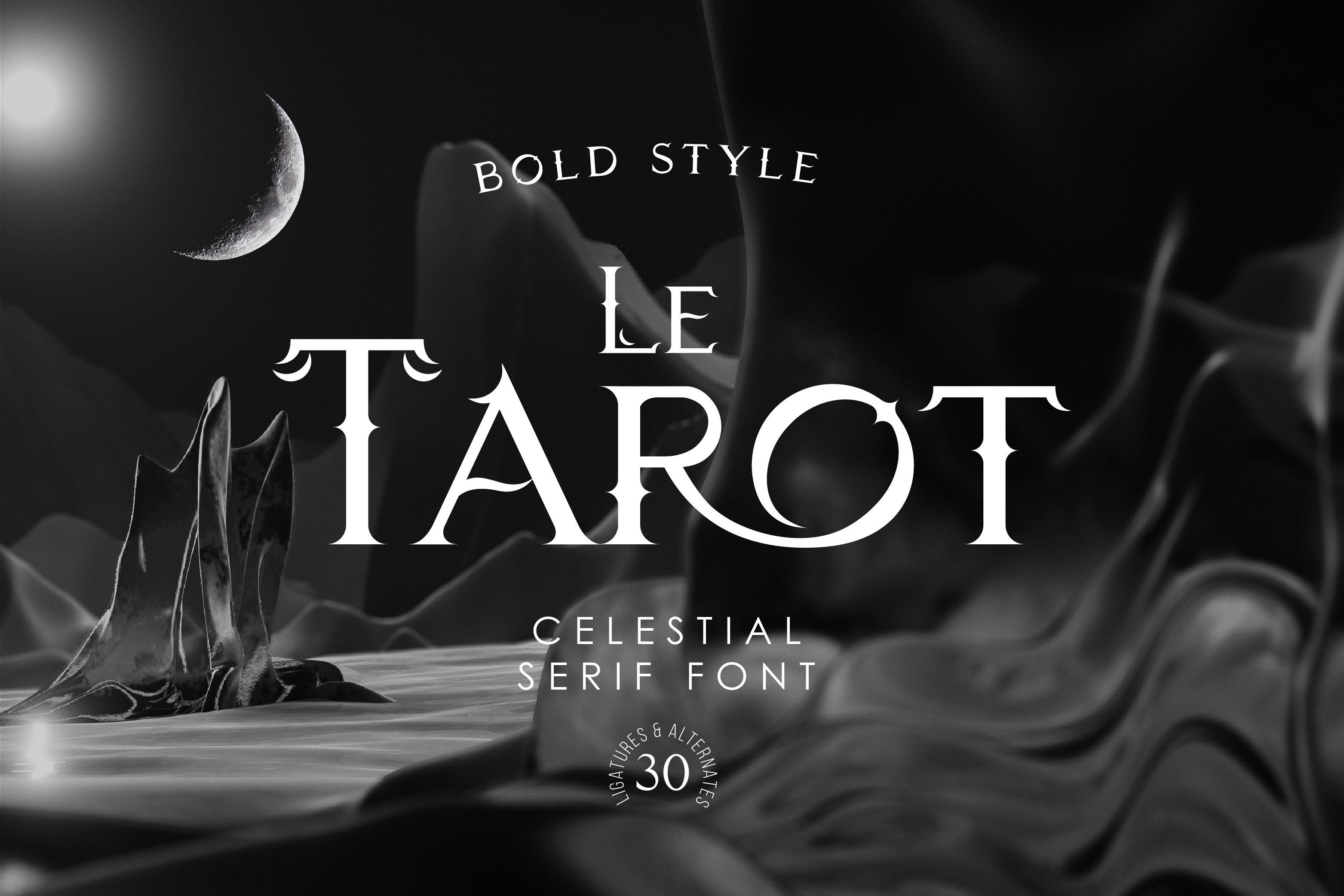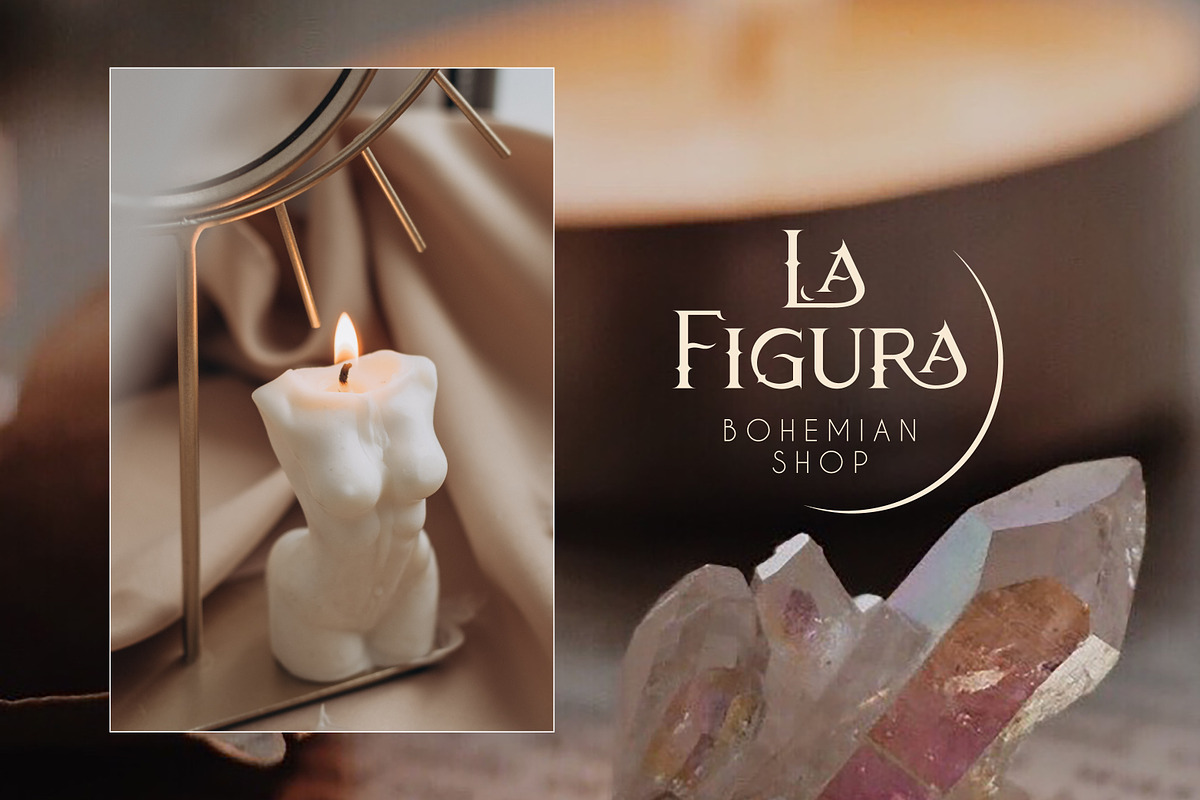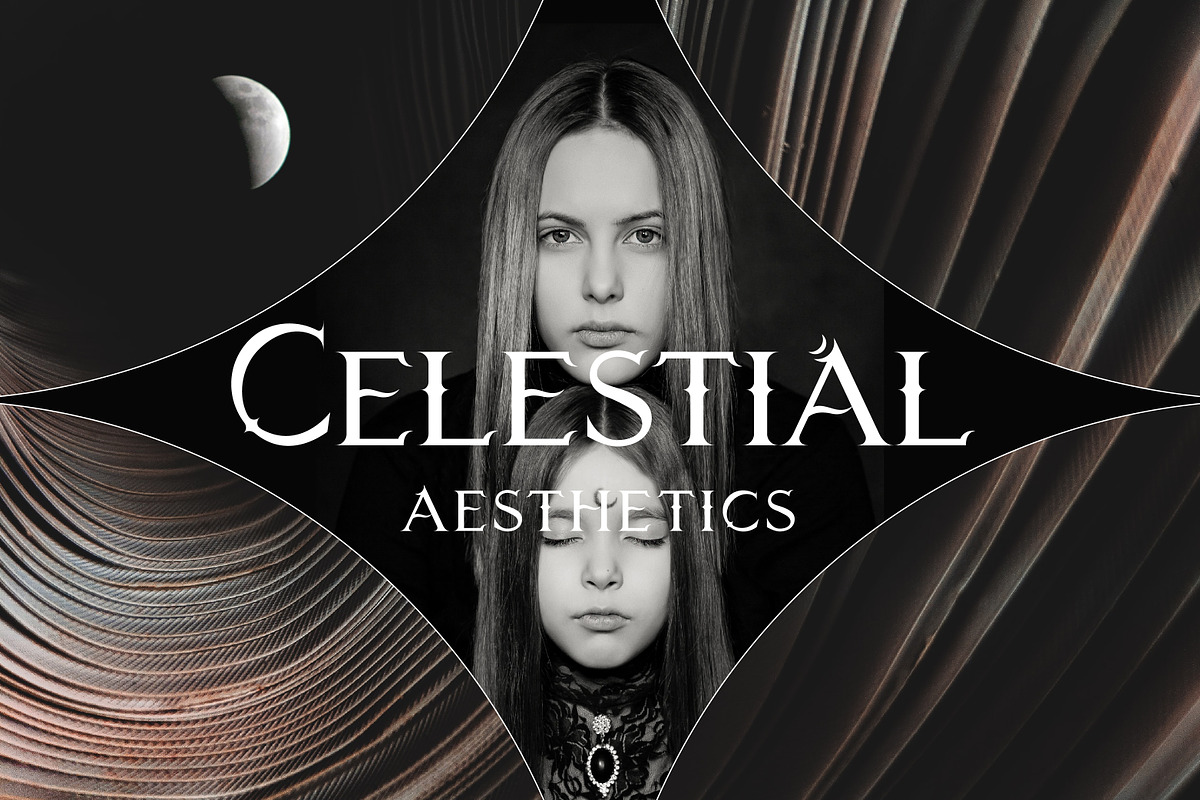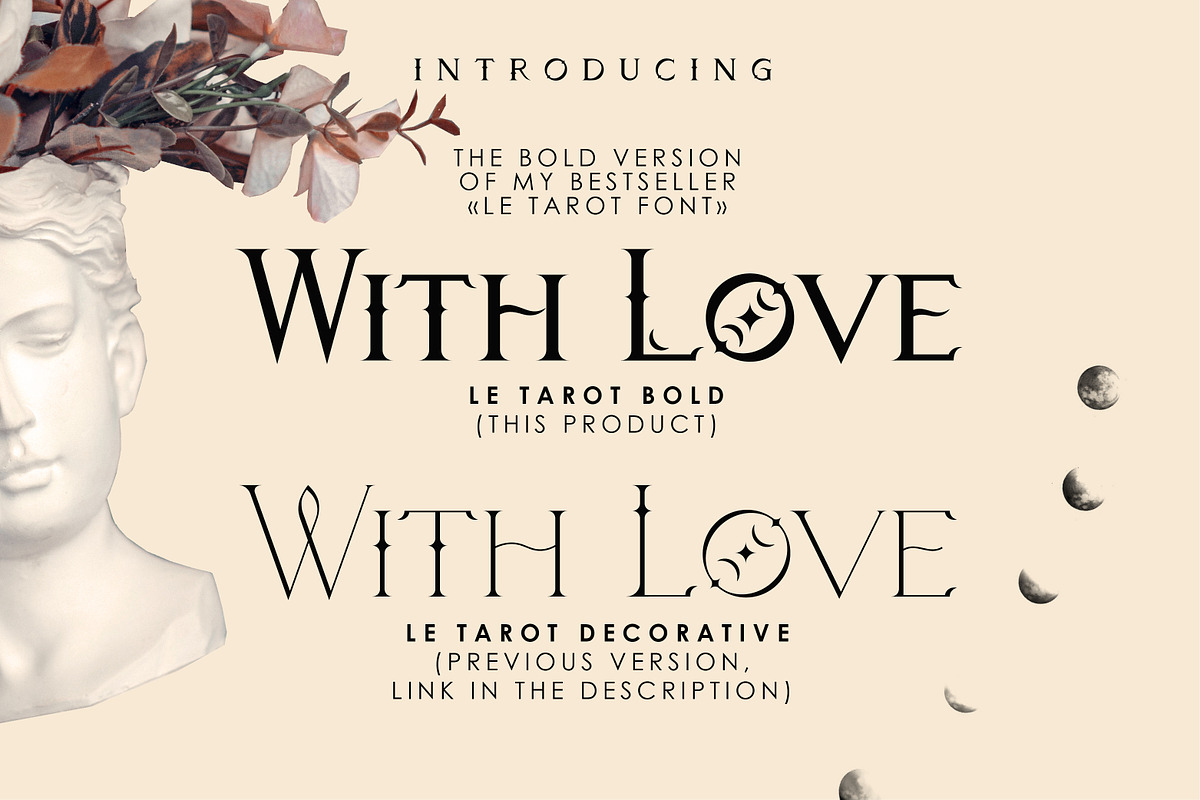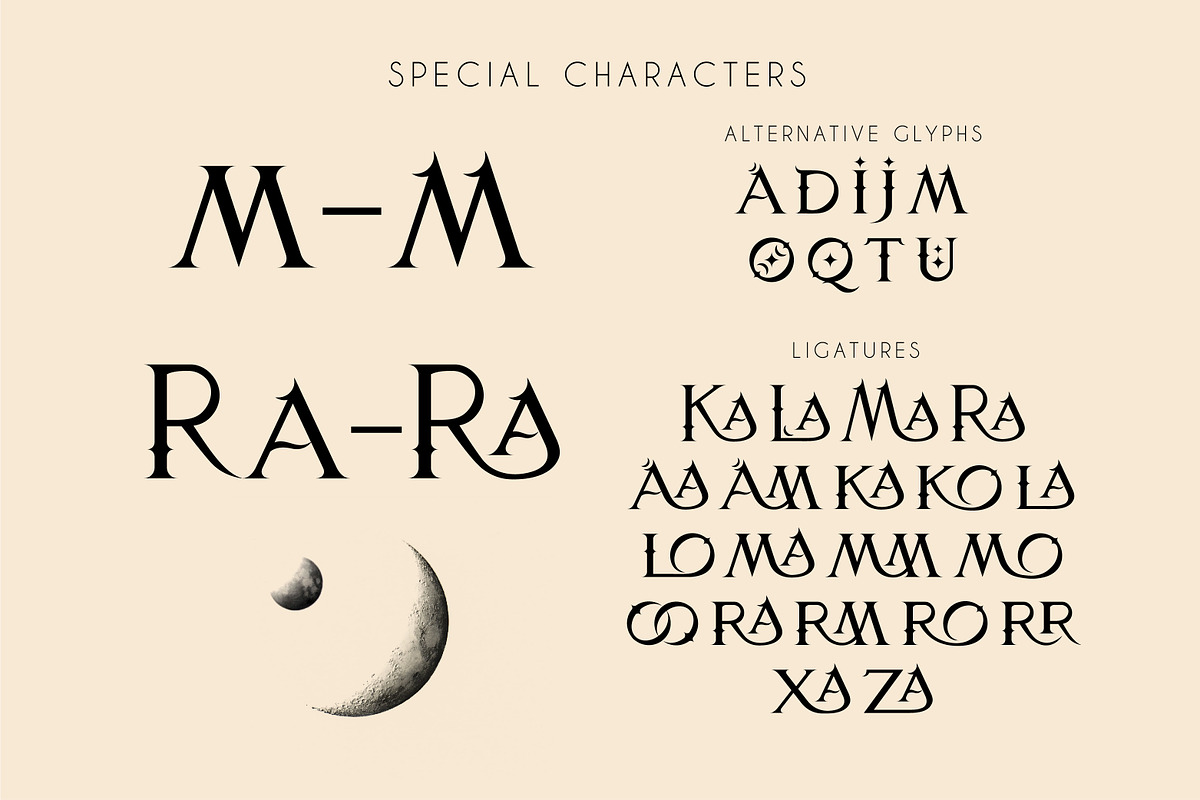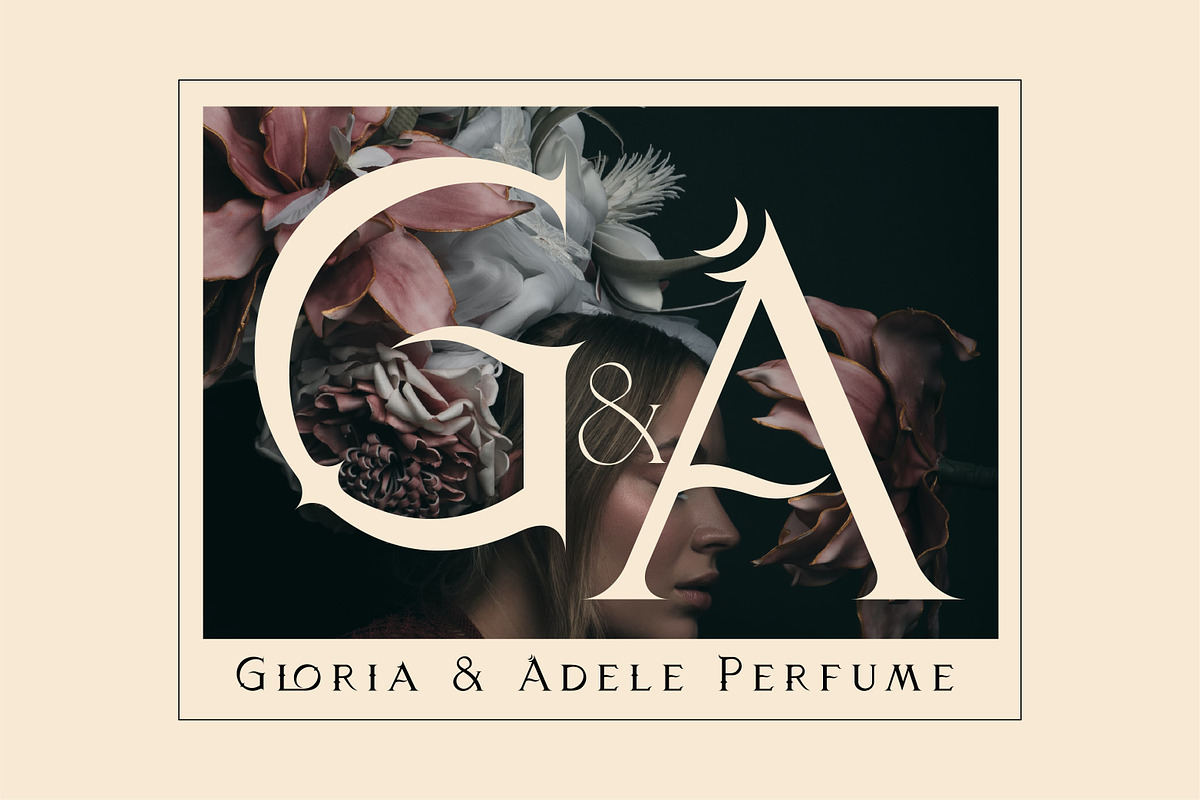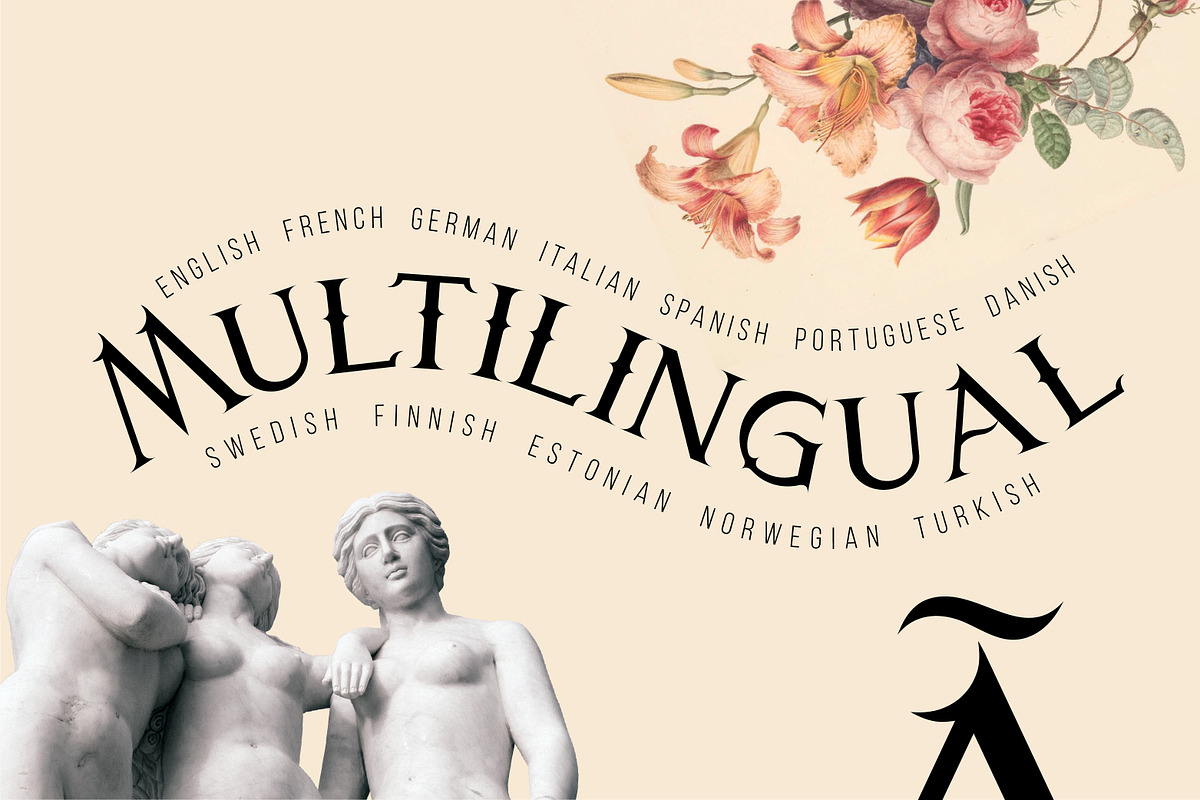
Le Tarot Bold - Celestial Serif Font
Le Tarot Bold is a modern serif font with celestial motives. The font is created in classic proportions and decorated with the moon and stars. Le Tarot Bold includes stylistic alternates and ligatures. The font is suitable for the design on the theme of astrology, mysticism, spirituality, witchcraft, magic, esotericism.
Le Tarot Bold has extensive language support, it includes English, French, German, Italian, Spanish, Portuguese, Danish, Norwegian, Swedish, Finnish, Estonian, Turkish. Need to know if your language is supported? Type any words in the text box below and see if all characters you need are there.
Le Tarot Bold includes stylistic alternates for symbols: a, d, i, j, m, o, q, t, u. There are also ligatures: Ka, La, Ma, Ra, aa, am, ka, ko, la, lo, ma, mm, mo, oo, ra, rm, ro, rr, xa, za.